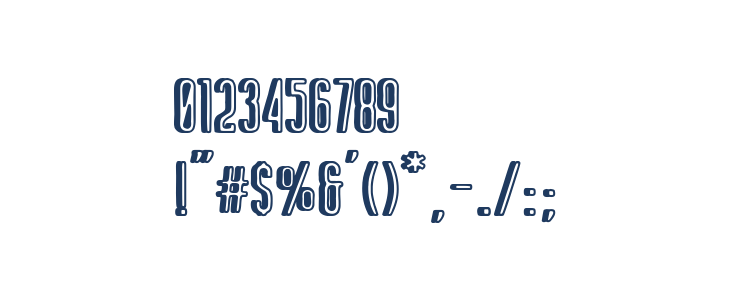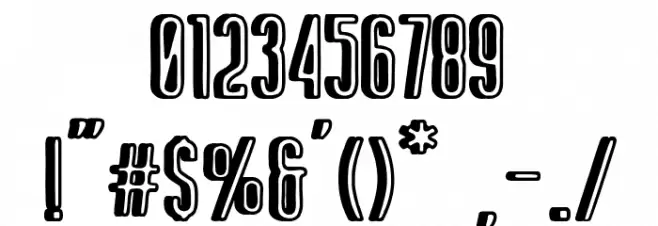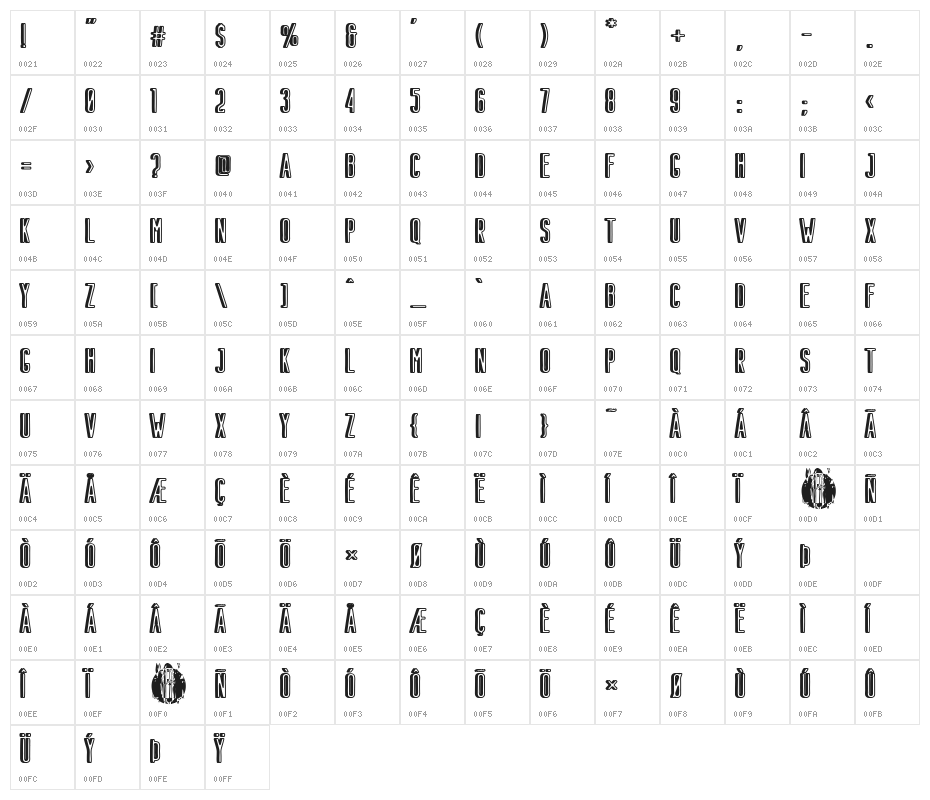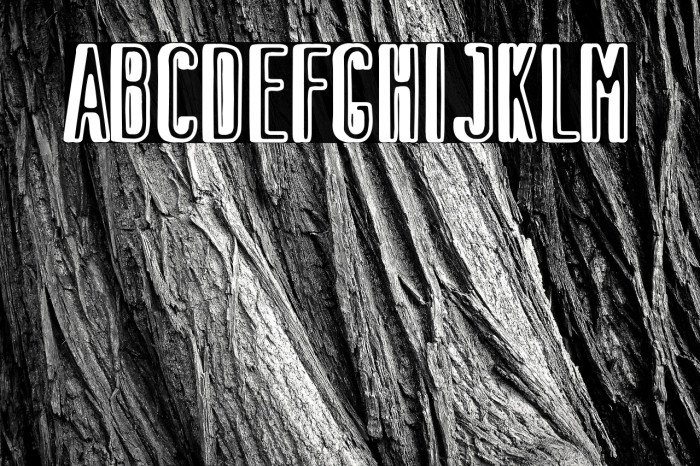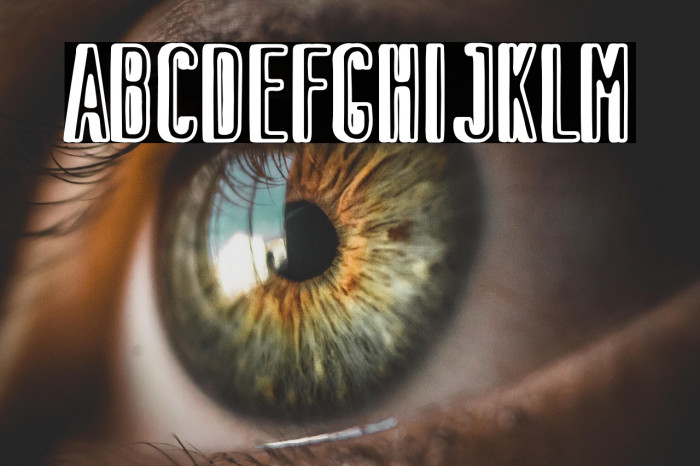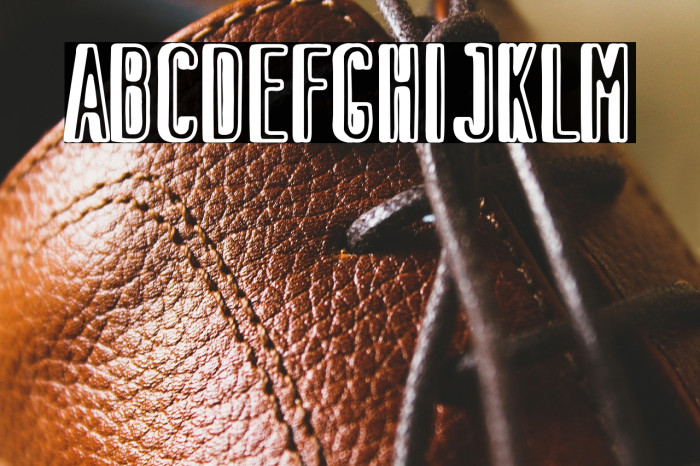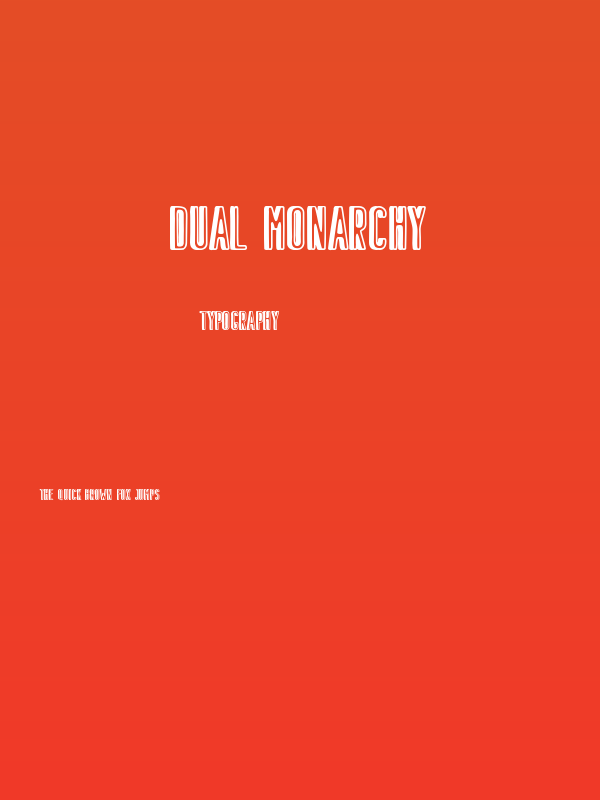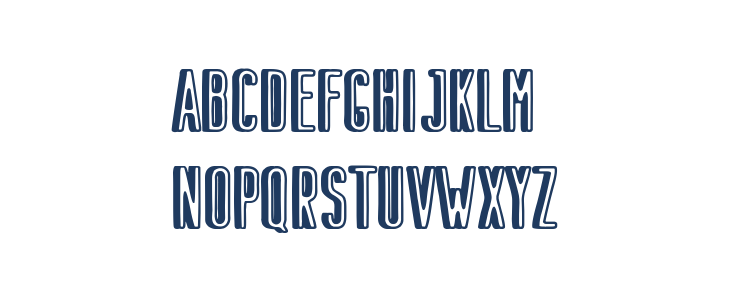
Dual Monarchy Font
Dual Monarchy Description
This font features a bold, decorative style with a distinct outline around each character, giving it a three-dimensional appearance. The uppercase letters are tall and narrow, with consistent stroke widths that create a uniform look. The lowercase letters maintain the same stylistic elements, ensuring cohesion throughout the typeface. Numbers and special characters are designed with the same bold outline, making them stand out. This font's unique style makes it suitable for eye-catching designs where a strong visual impact is desired.
| Proposed Projects | Ideal for posters, headlines, logos, and any design requiring a bold statement. |